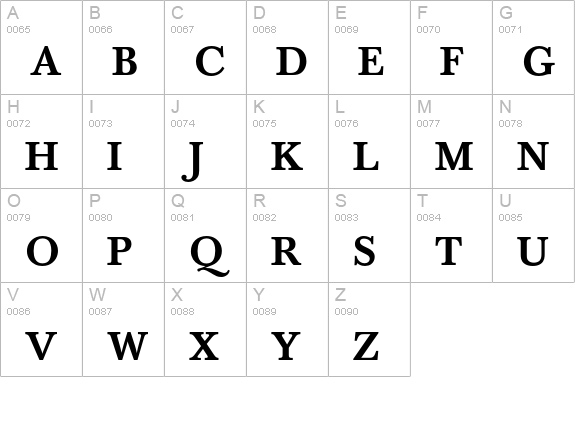
Berthold Baskerville Medium is a balanced, medium-weight variant in the Berthold typeface family \xE2\x80\x94 well suited to sub-headlines, navigation, and balanced editorial work.
The Berthold Baskerville Medium font exudes a timeless elegance with its classic serifs and refined strokes. Its medium weight strikes the perfect balance between readability and sophistication, making it ideal for a wide range of design projects. This font effortlessly captures a sense of tradition and prestige, while maintaining a modern appeal that is sure to captivate any audience. What sets Berthold Baskerville Medium apart is that it is freely available to download at FontsMarket.com. This means that designers and creatives alike can easily access this exquisite typeface without any costs or restrictions. With its versatility and aesthetic charm, Berthold Baskerville Medium is a must-have addition to any font library, promising to elevate any design with its timeless beauty and grace.